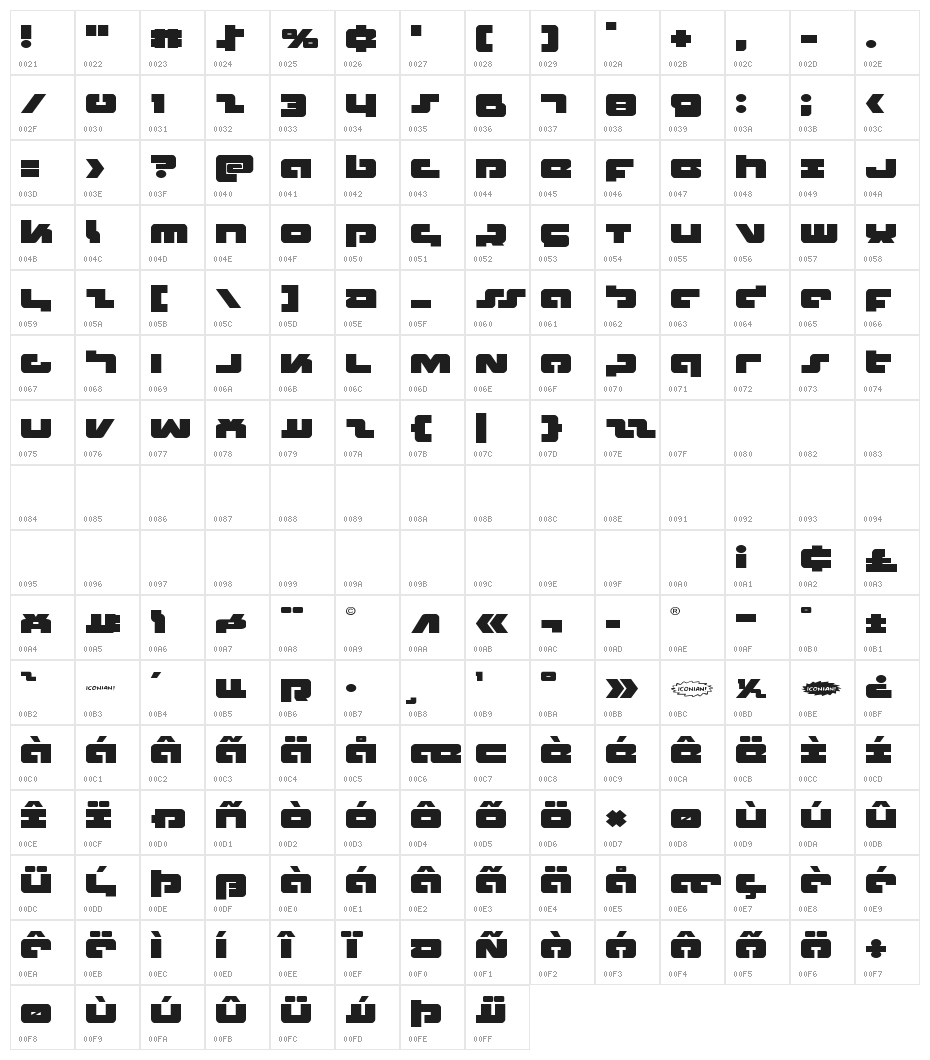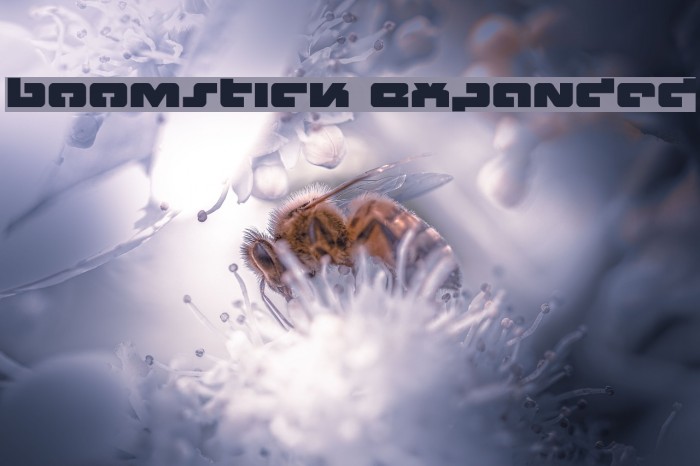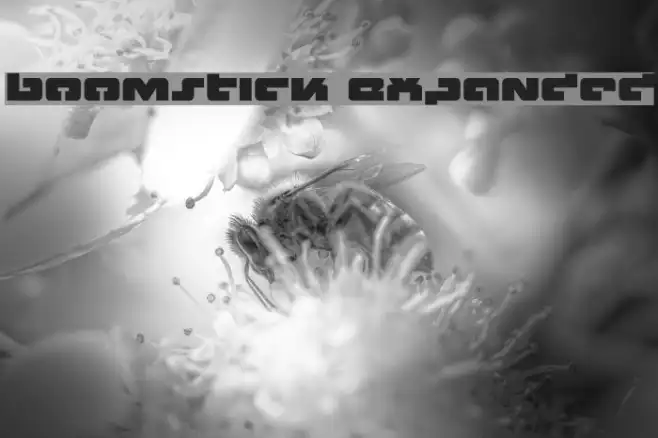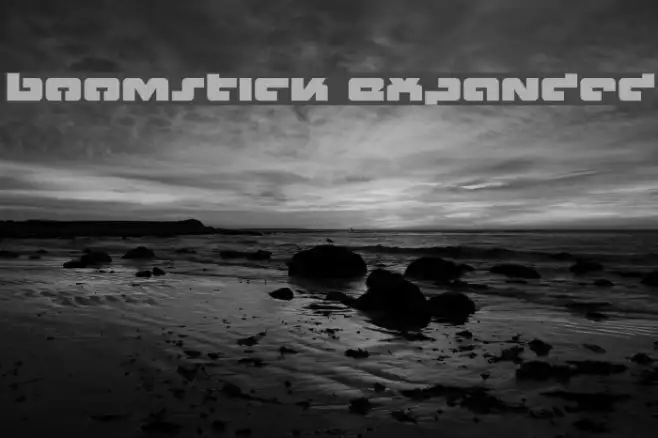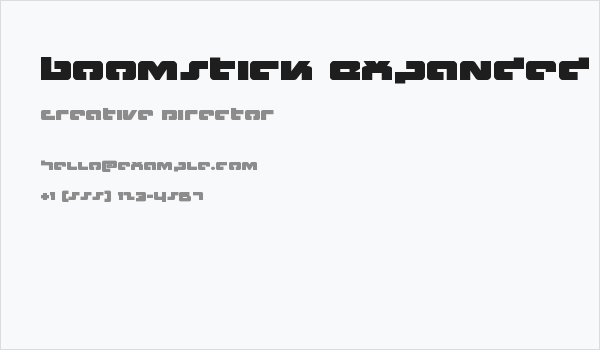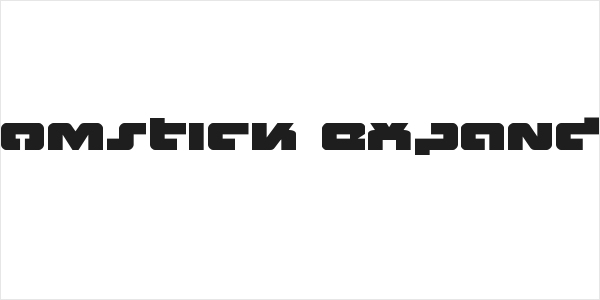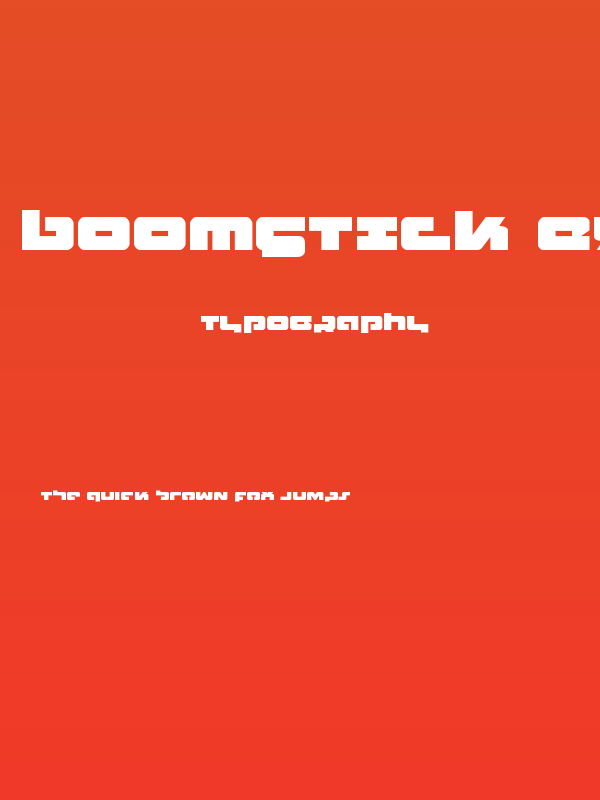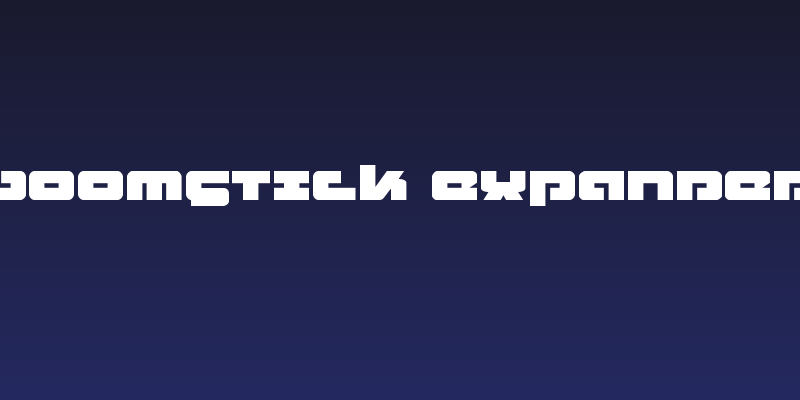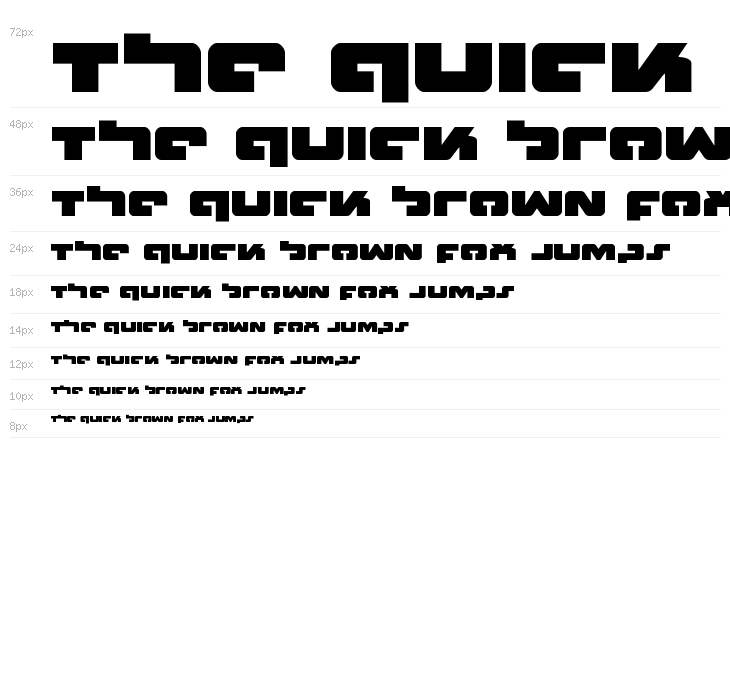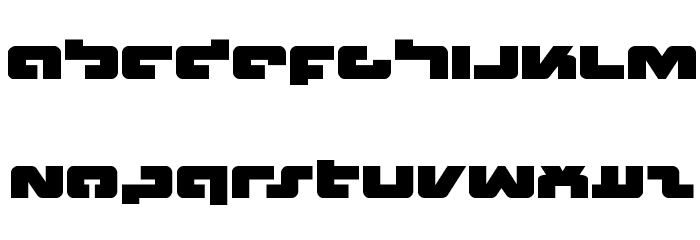
Boomstick Expanded Font
Boomstick Expanded Description
This font features a bold and geometric design with a distinctly futuristic and industrial feel. The characters are constructed with thick, block-like shapes that convey strength and modernity. The uppercase and lowercase letters maintain a consistent width, creating a uniform appearance. The numbers and special characters follow the same robust style, ensuring cohesion across all elements. The font's unique style is characterized by its expanded width and minimal contrast in stroke thickness, making it stand out in any design. Its bold presence is ideal for making a strong visual impact.
| Proposed Projects | Ideal for branding, posters, video game graphics, and sci-fi themed projects. |